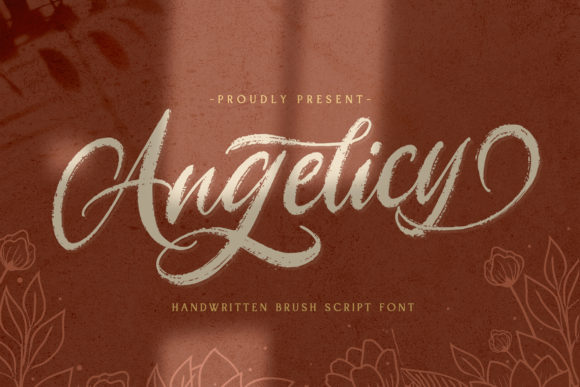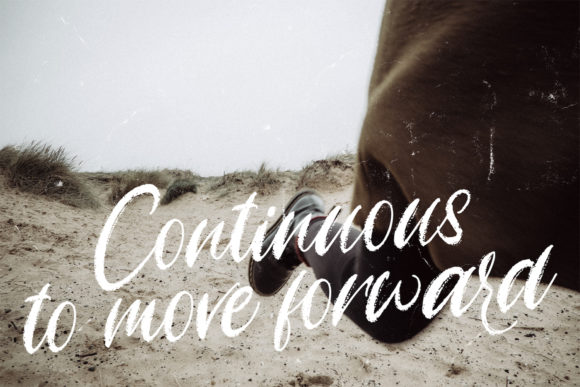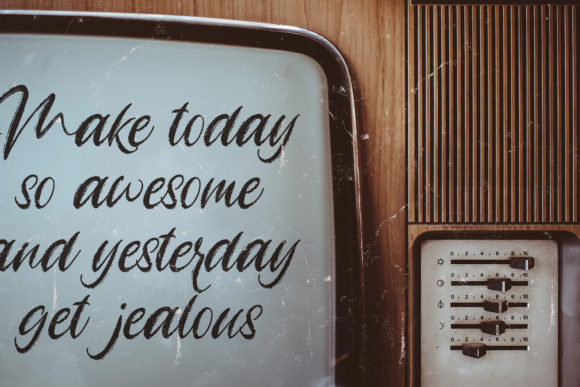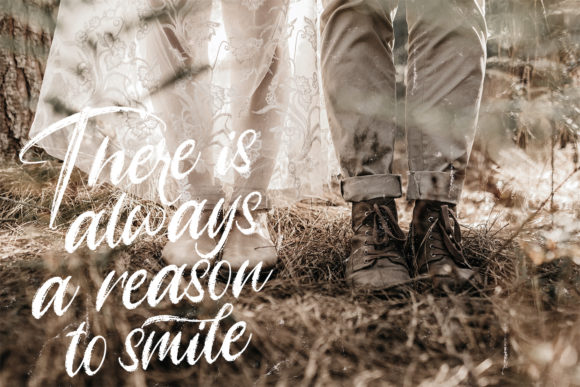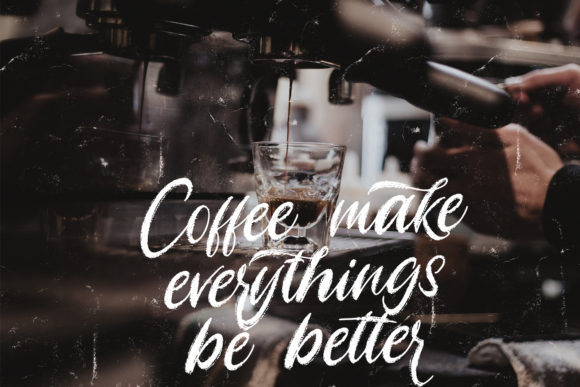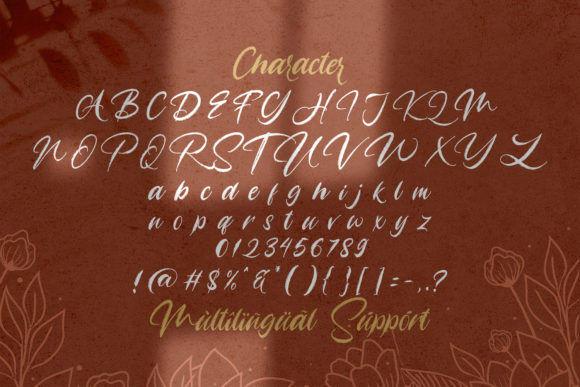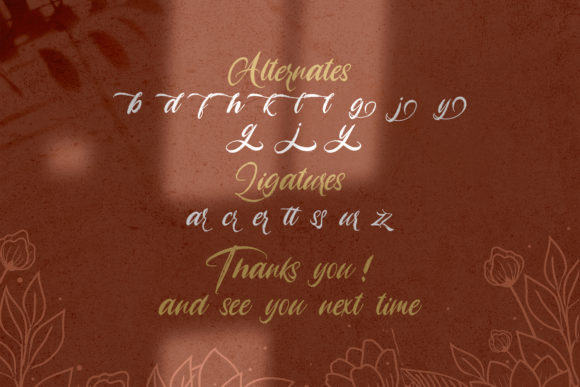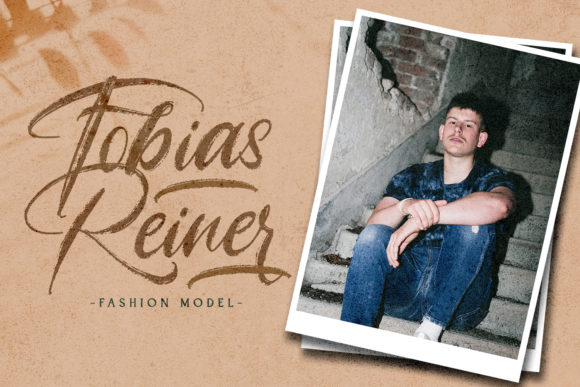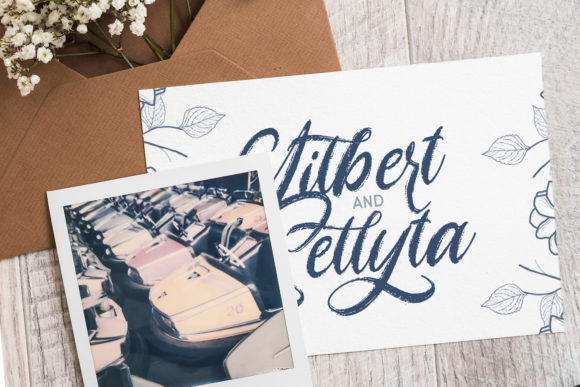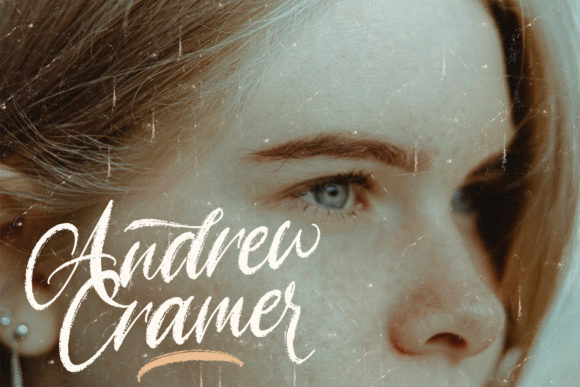
Angelicy Font
Angelicy is a cute handwritten font, created by using a brush pen. Clean and a little bit quirky, this font is the perfect fit for all of your logos, branding, social media, and crafty DIY projects.